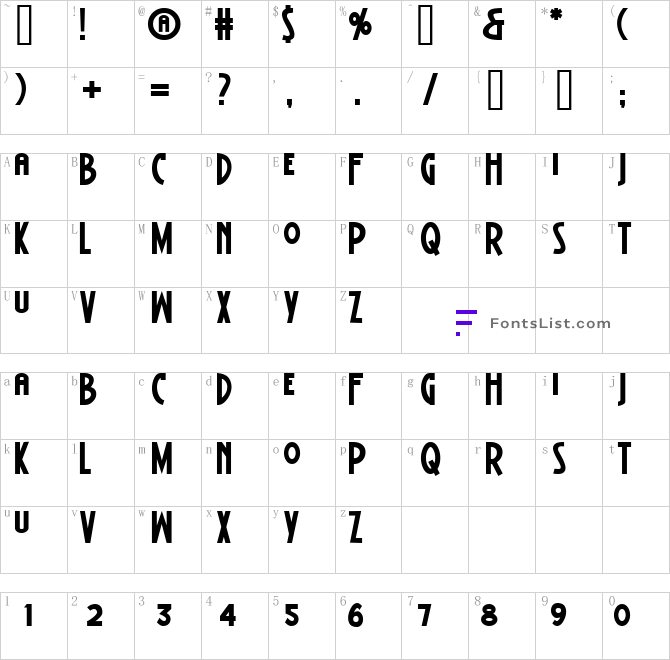
- Font Name:BattleLines
BattleLines.ttf is a very beautiful artistic font, BattleLines.ttf is widely used in the design and printing of various books and pictures,BattleLines.ttf has a strong visual impact,BattleLines.ttf is a commonly used font in newspapers, magazines and books, and is used in posters, e-commerce Poster design, store design, logo design, font design and other fields.BattleLines.